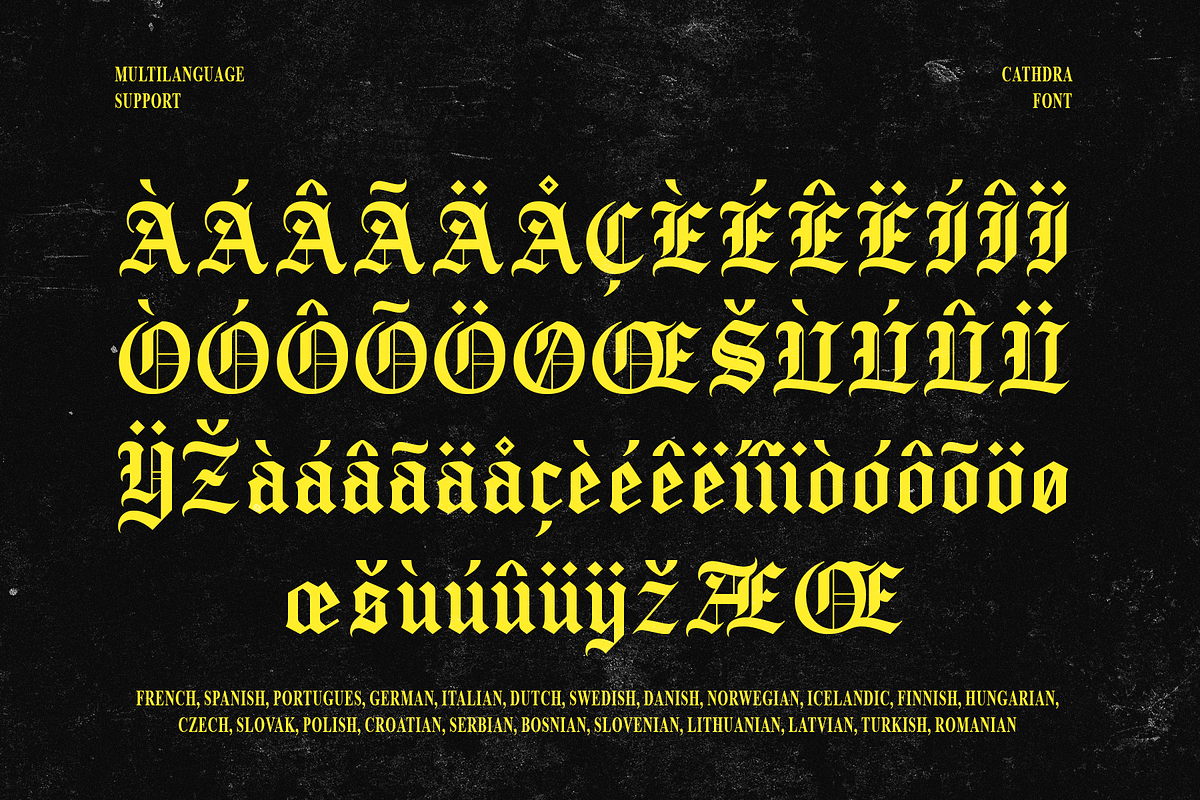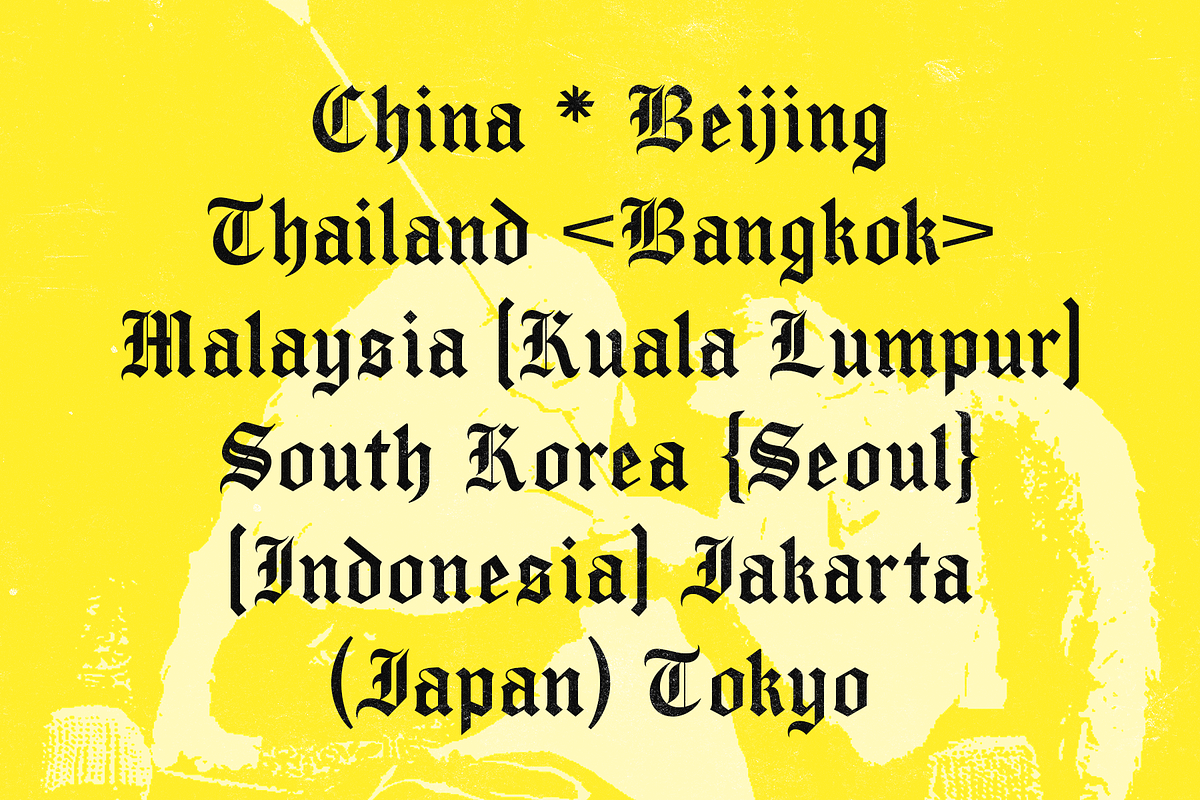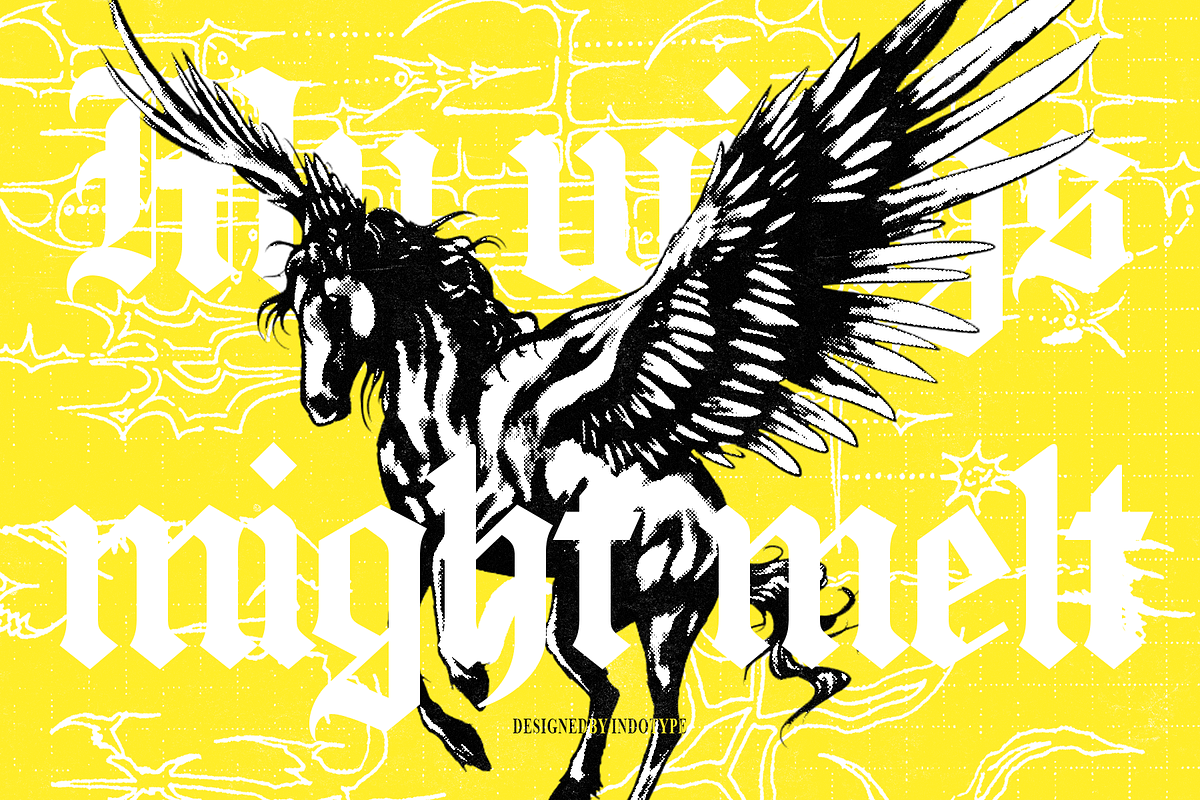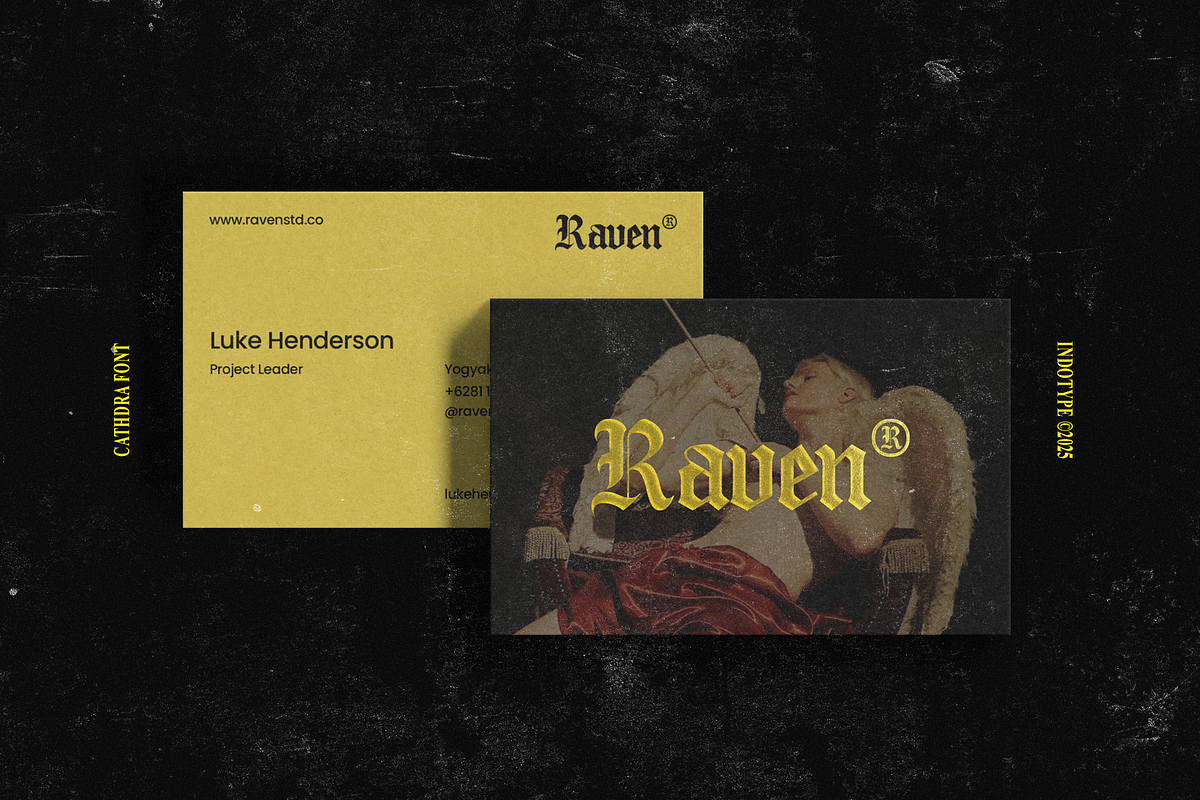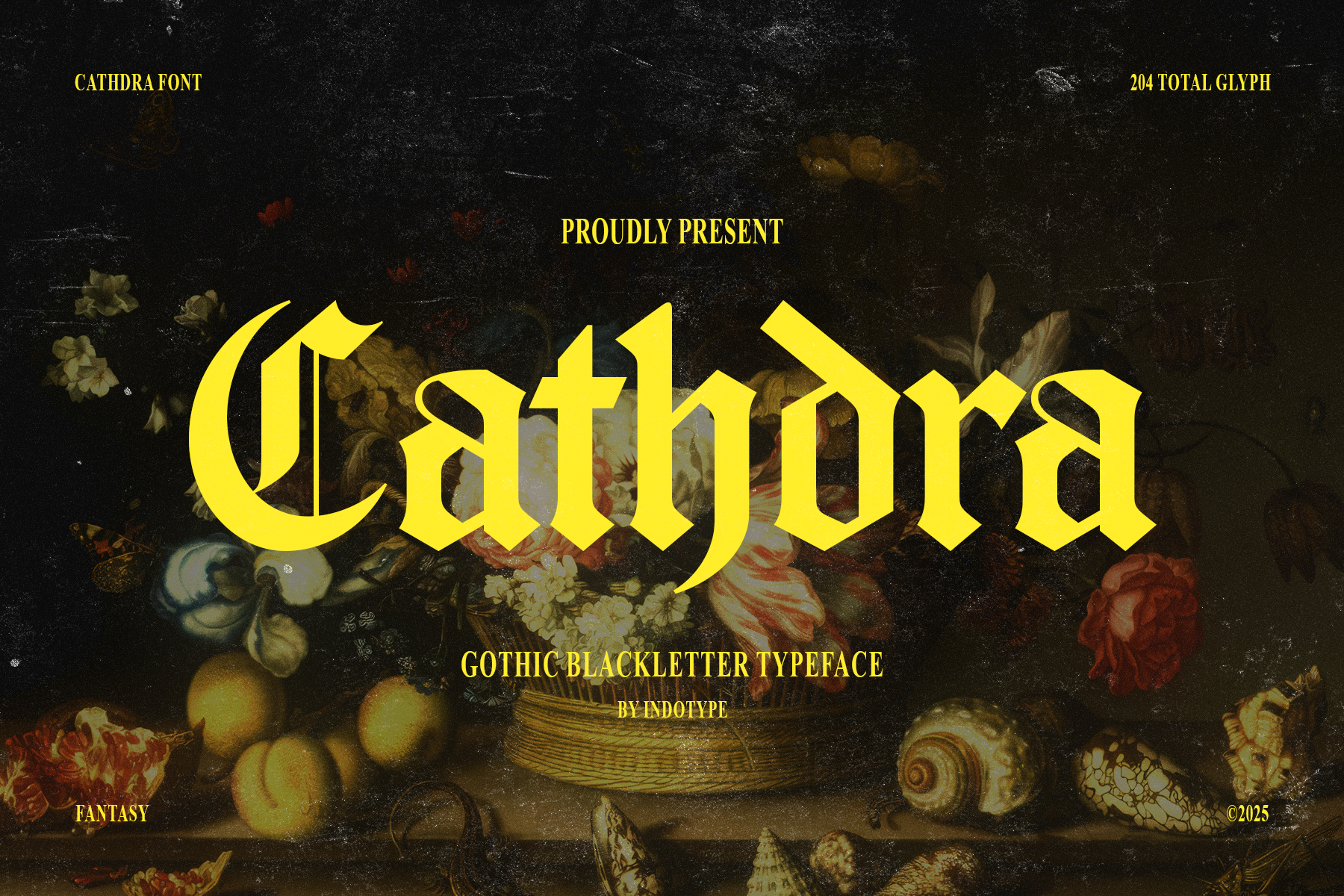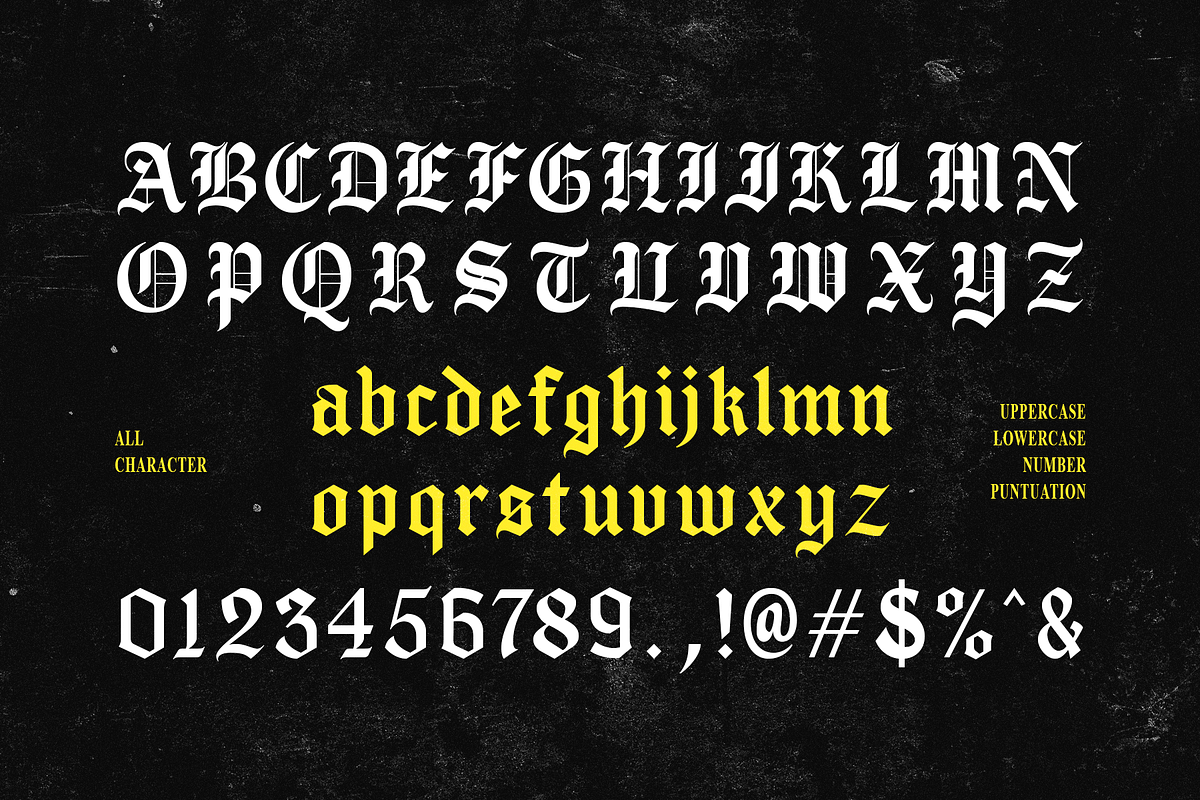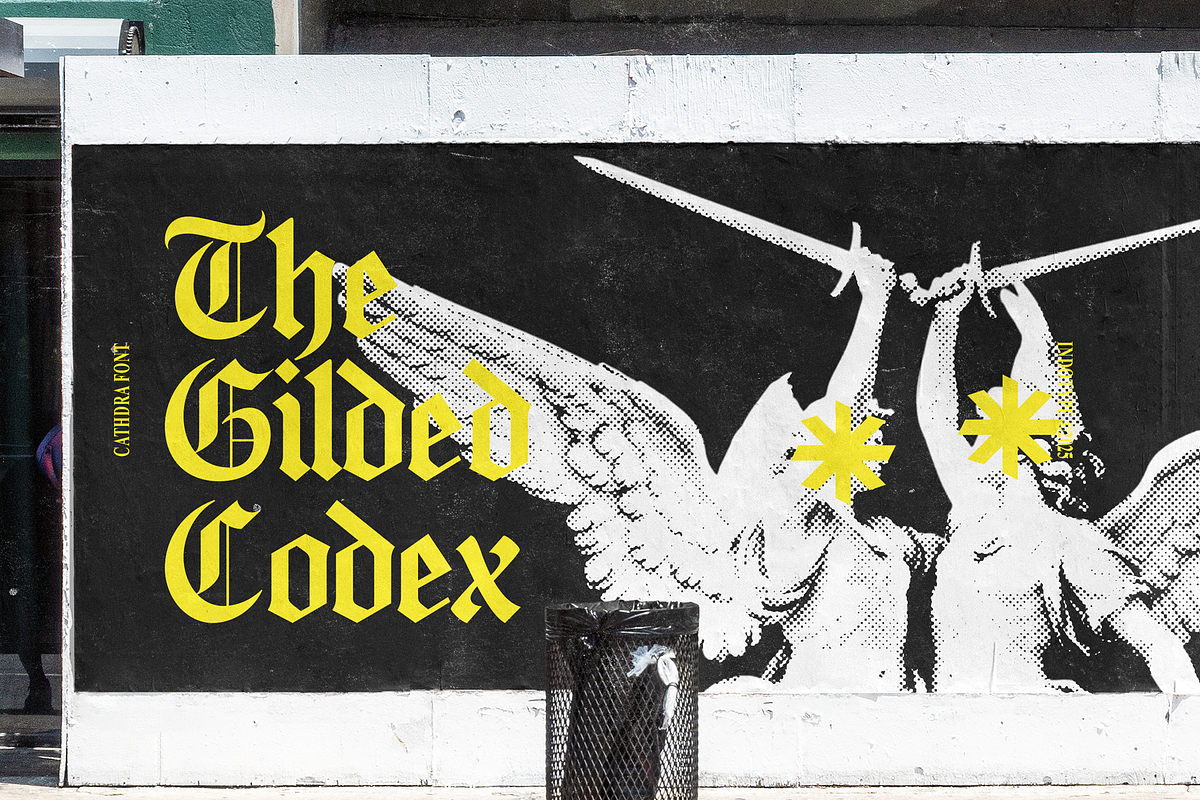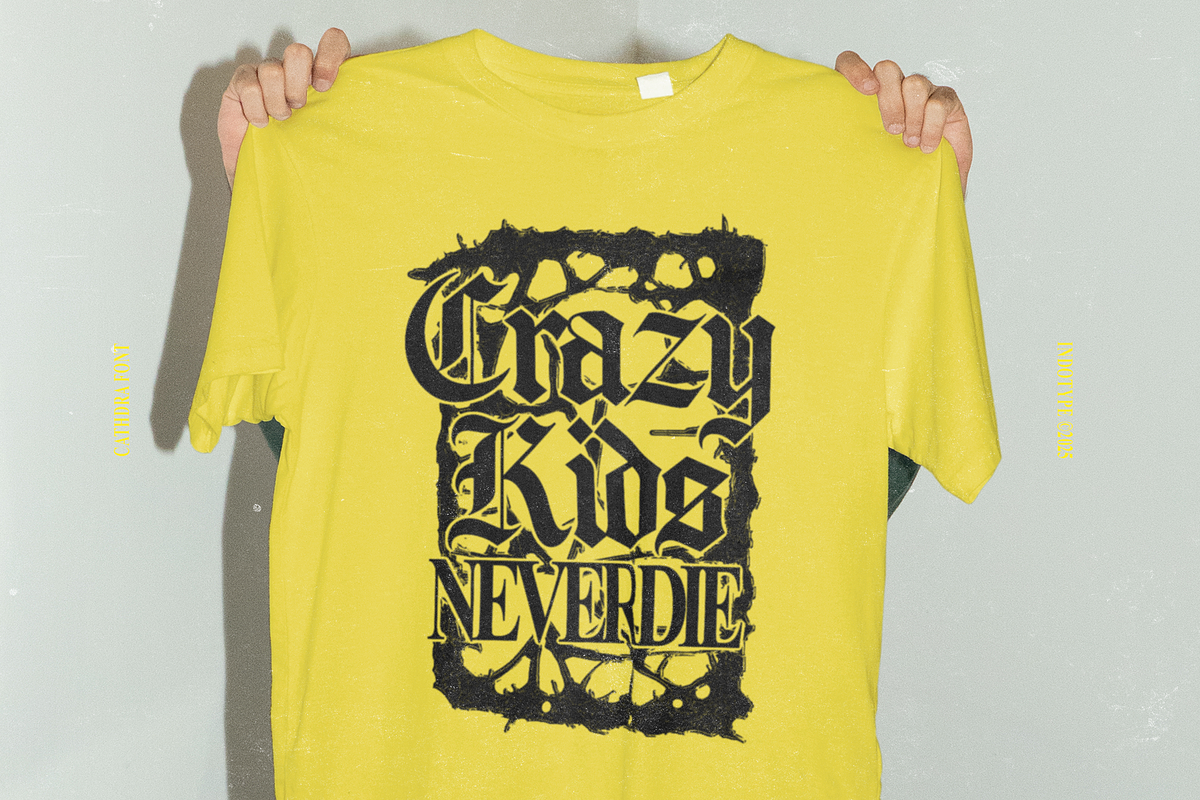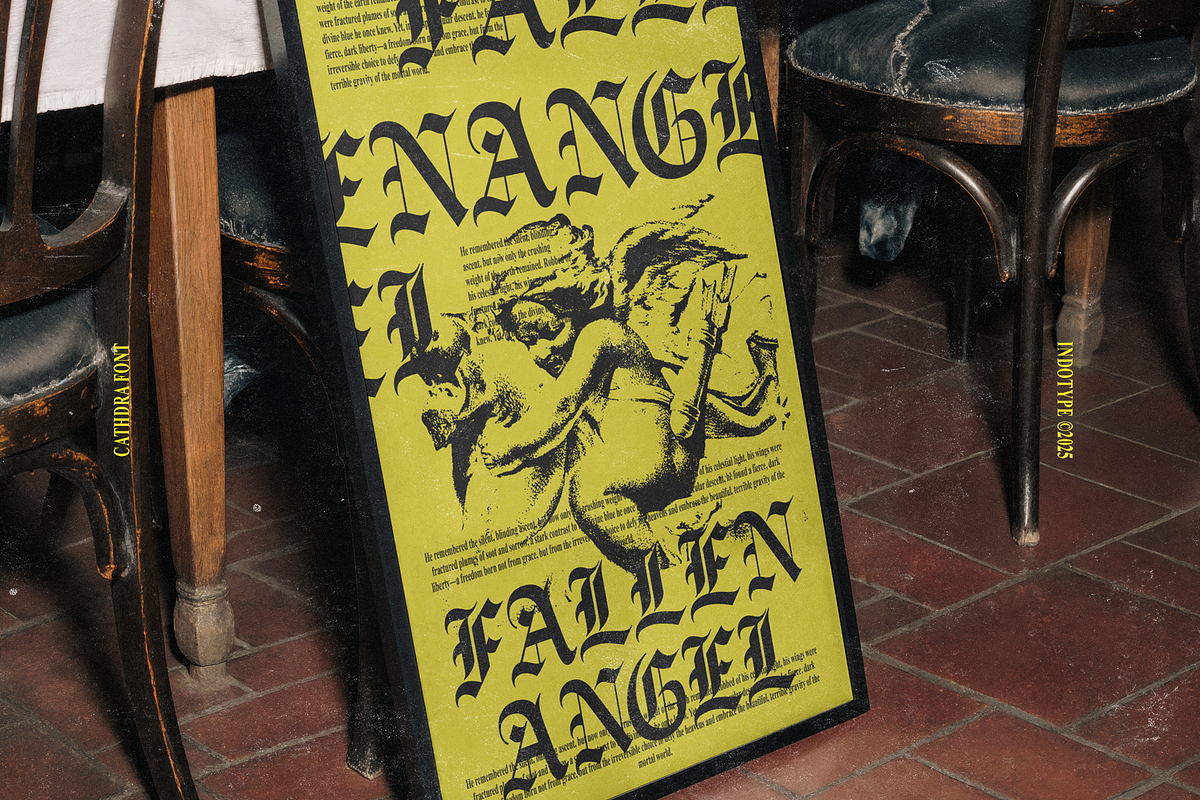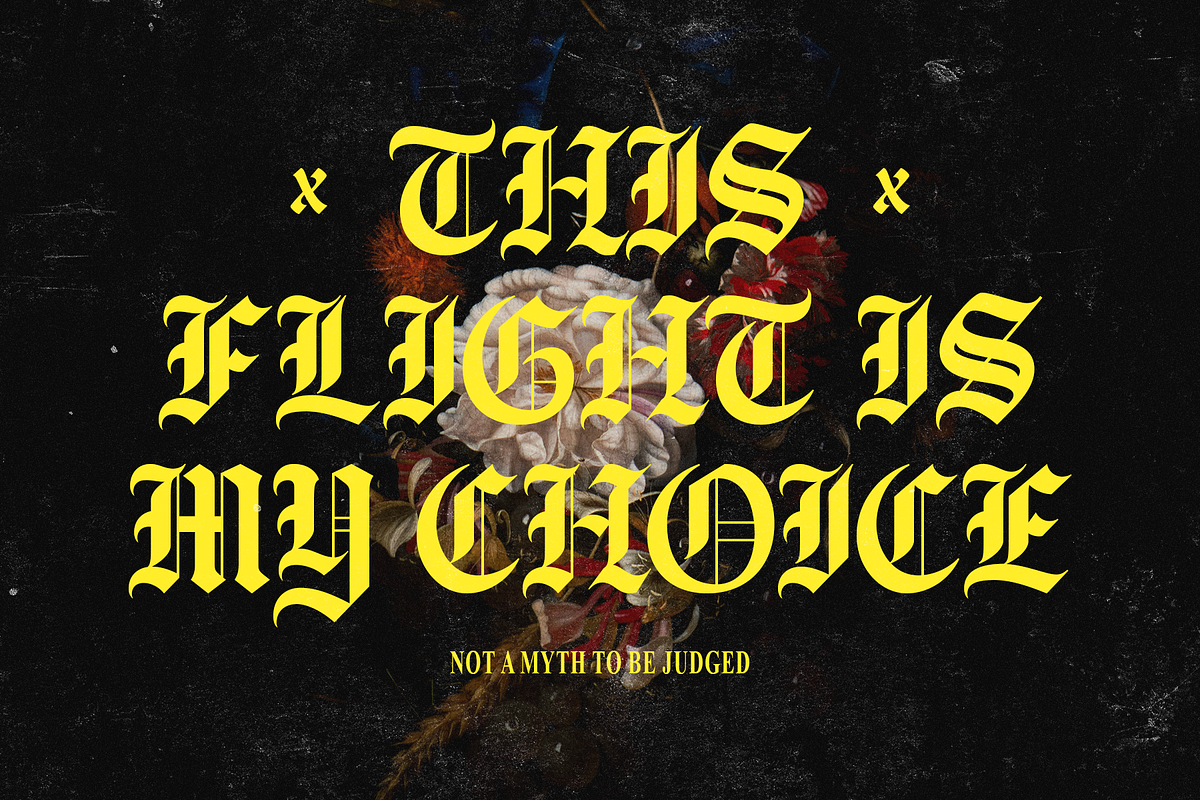
Cathdra - Gothic Blackletter Font
Cathdra is a powerful and atmospheric Gothic Blackletter typeface that channels the ancient spirit of calligraphy into a modern design tool. With its sharp, angular strokes and intricate detailing, this font evokes a sense of medieval grandeur, dark fantasy, and timeless mystique. Each character is crafted with a dramatic presence, making Cathdra an ideal choice for projects that require bold, expressive, and historically-rich typography. This typeface offers substantial versatility for creating immersive worlds. Its unmistakable Gothic aesthetic makes it perfect for everything from heavy metal album art and fantasy book covers to historical branding, tattoo designs, and occult-themed projects. Cathdra is more than just a font—it's a statement of dark artistry and narrative power. • Ideal for: Fantasy Book Covers, Metal Band Logos, Tattoo Design, Gothic Branding, Occult & Mystical Art, Historical Events, Game Titles. • Classification: Blackletter, Gothic, Display, Decorative, Fantasy. • Attributes: Dramatic, Atmospheric, Historical, Ornate, Bold, Mystical, Powerful.